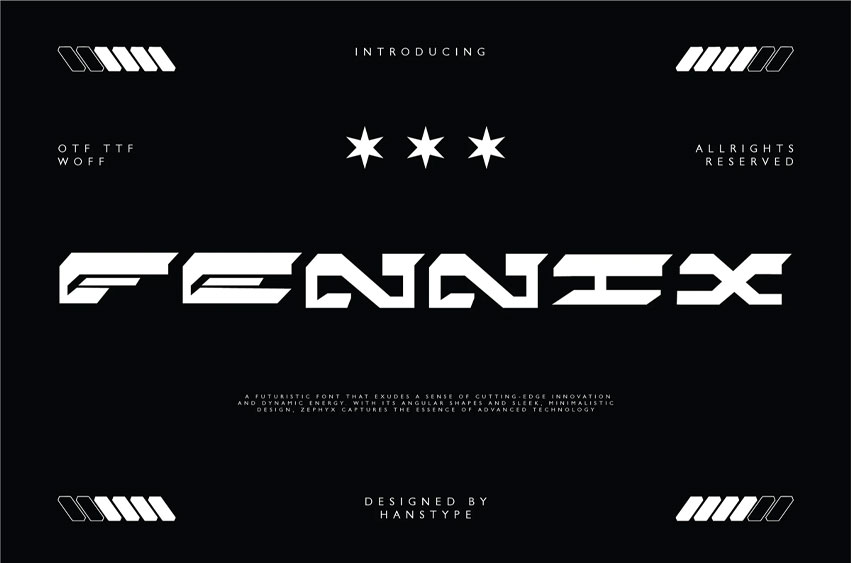
Fennix Font
Fennix Font  is a futuristic font that exudes a sense of cutting-edge innovation and dynamic energy.
With its angular shapes and sleek, minimalistic design, Zephyx captures the essence of advanced technology and digital progress.